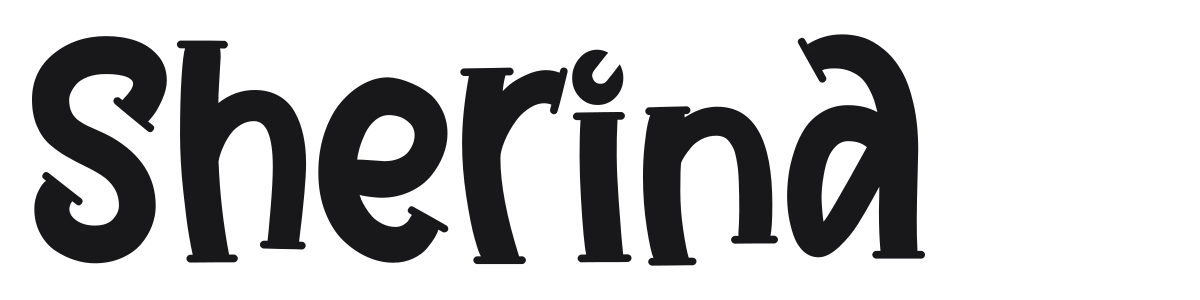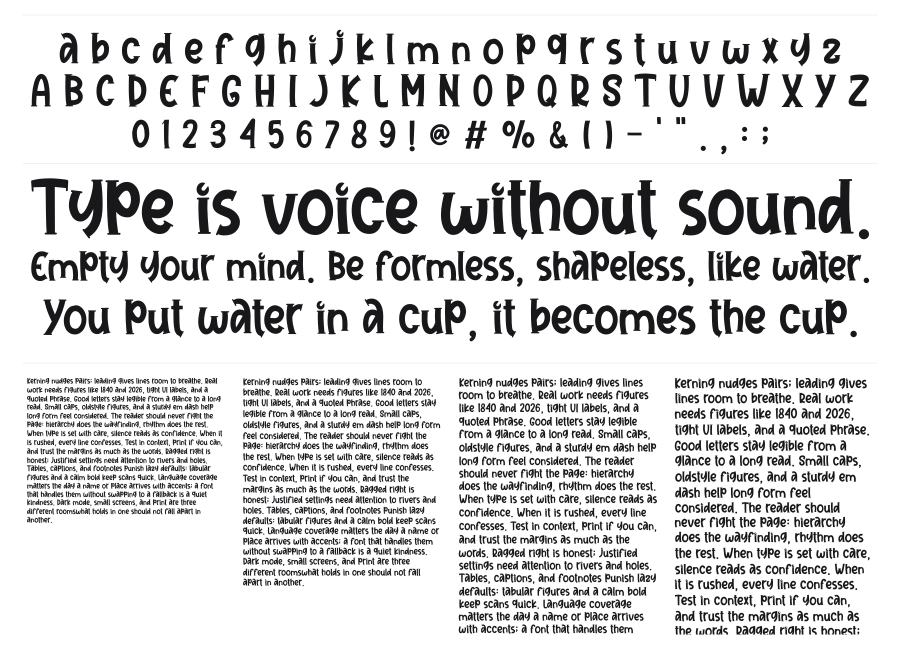
Sherina
Sherina is a chunky, hand-lettered display font with bold strokes and deliberately irregular, quirky character shapes. Each letter has a lively, comic energy with notched terminals and organic thick-thin variation that feels drawn rather than constructed. Strong at large sizes for children's branding, editorial headlines, and casual packaging.